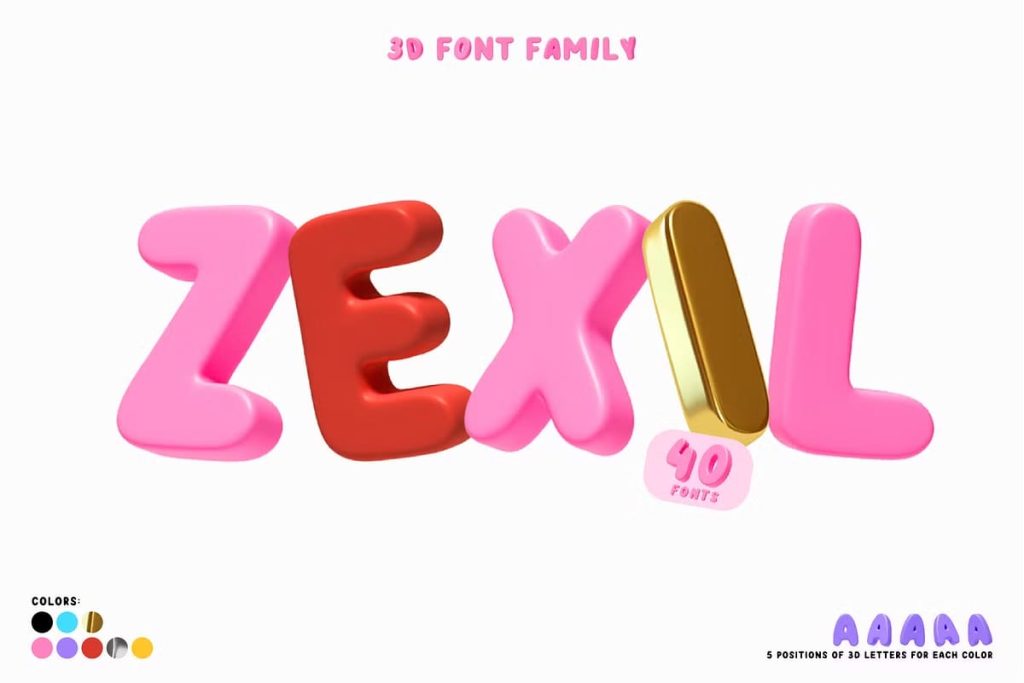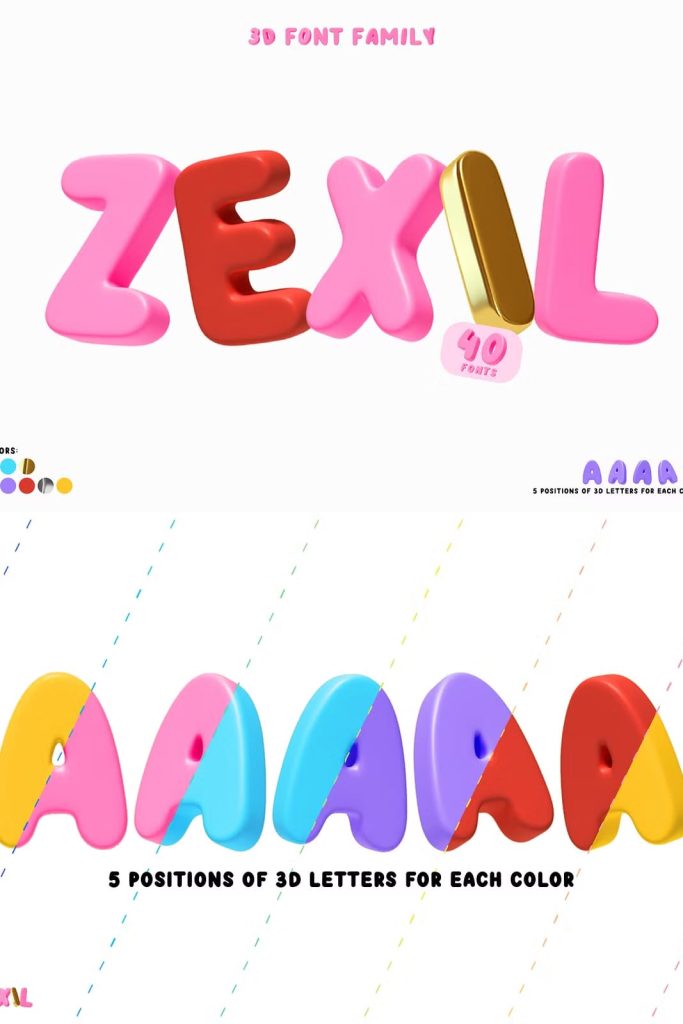
Create stunning visual impact with ZEXIL 3D fonts. Many ready-made color options, metallic and matte surfaces. 5 tilt options for each color. Easy to use at work. Just write your text and apply this font. Combine different letters and get an amazing visual effect. Have fun experiments)